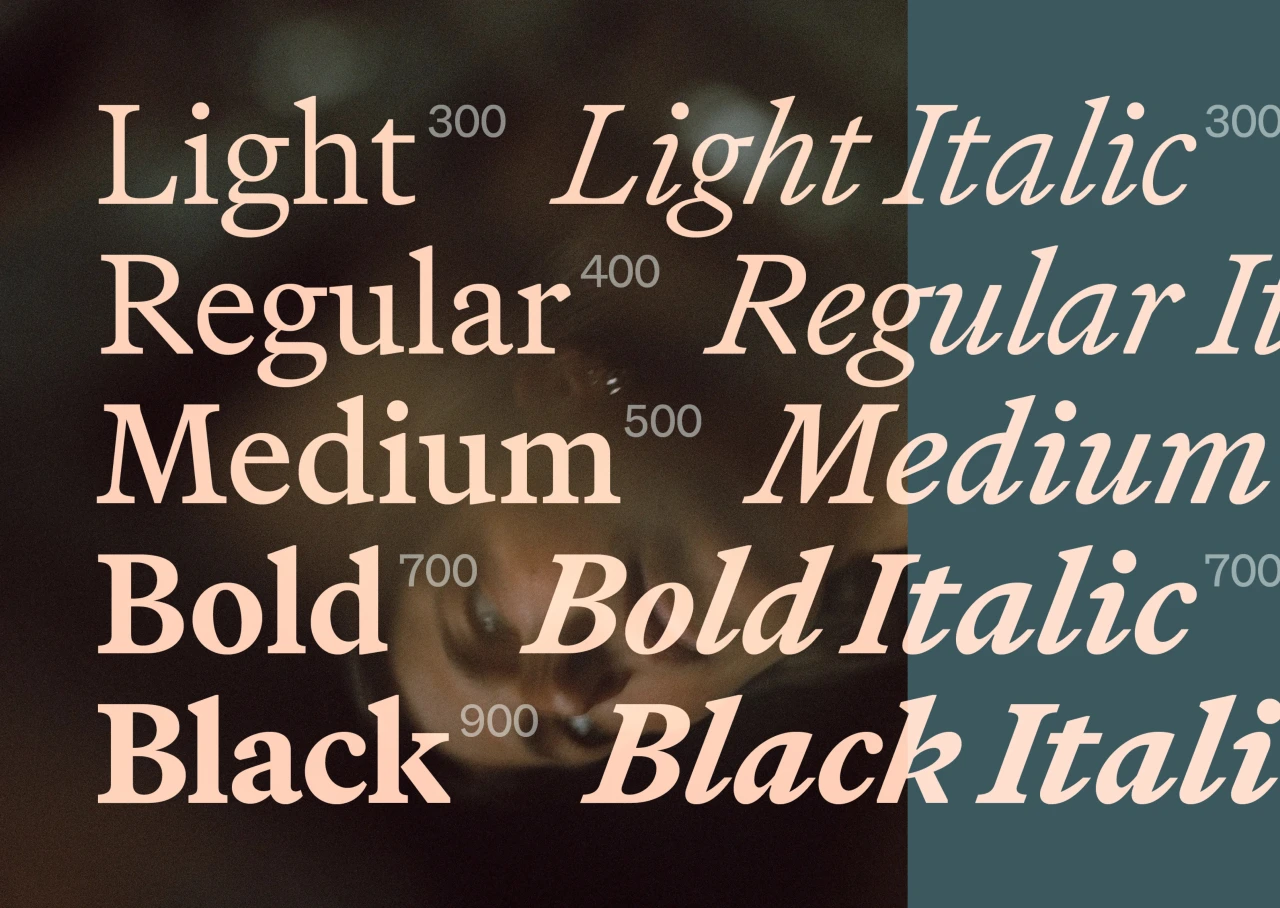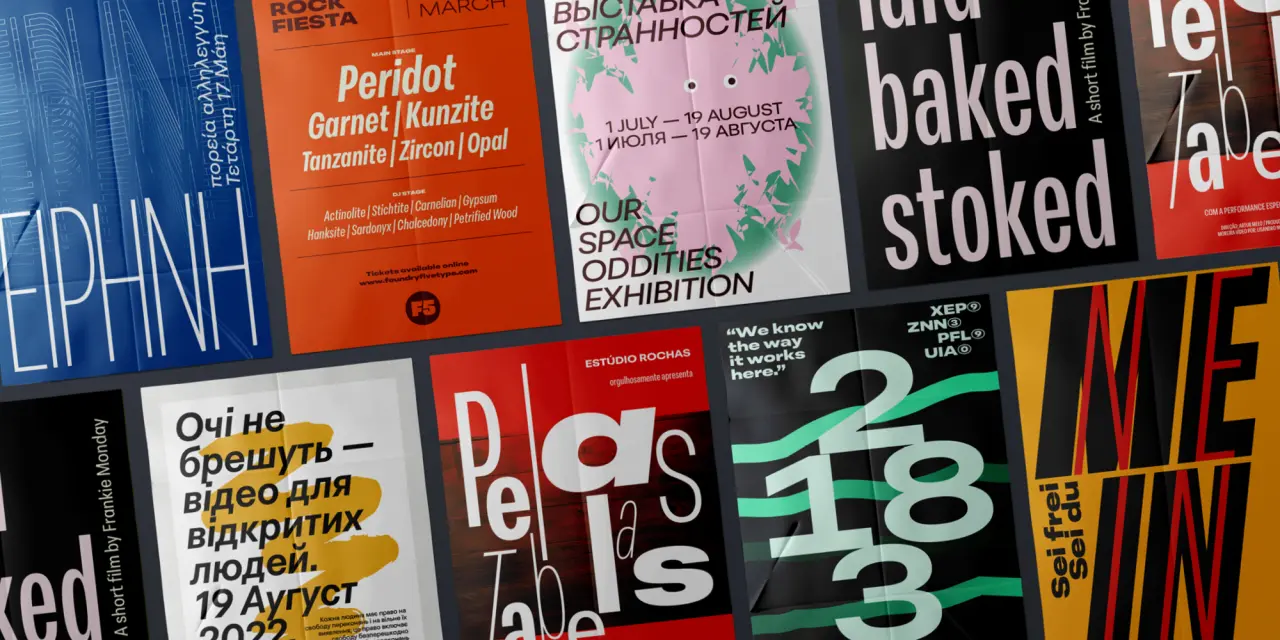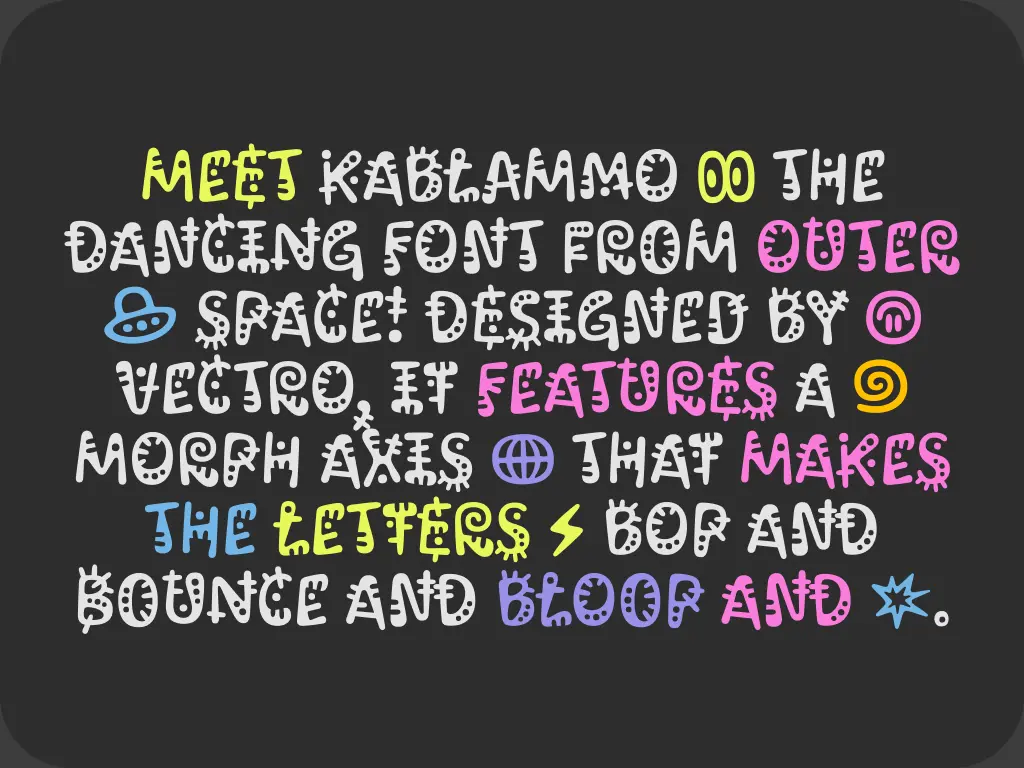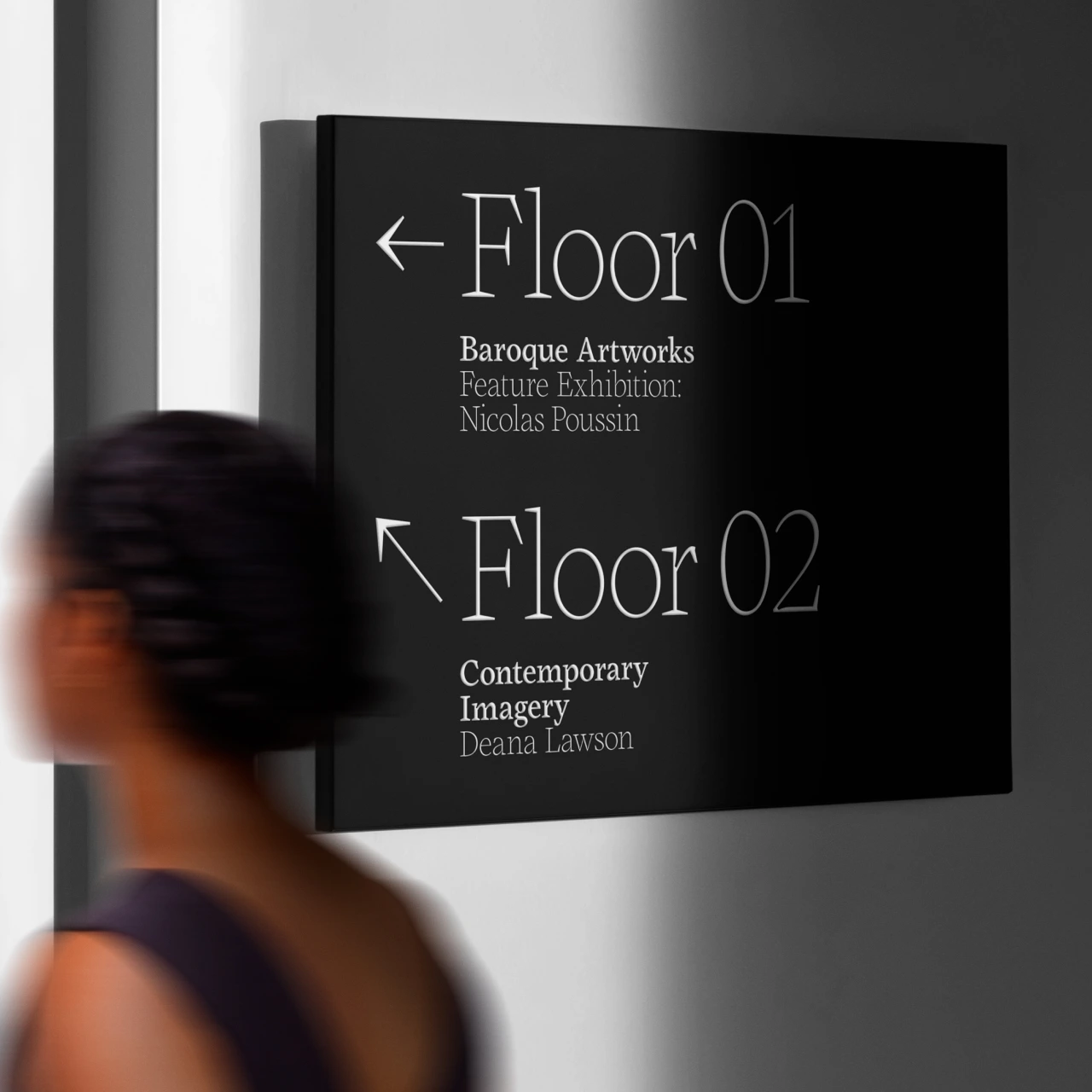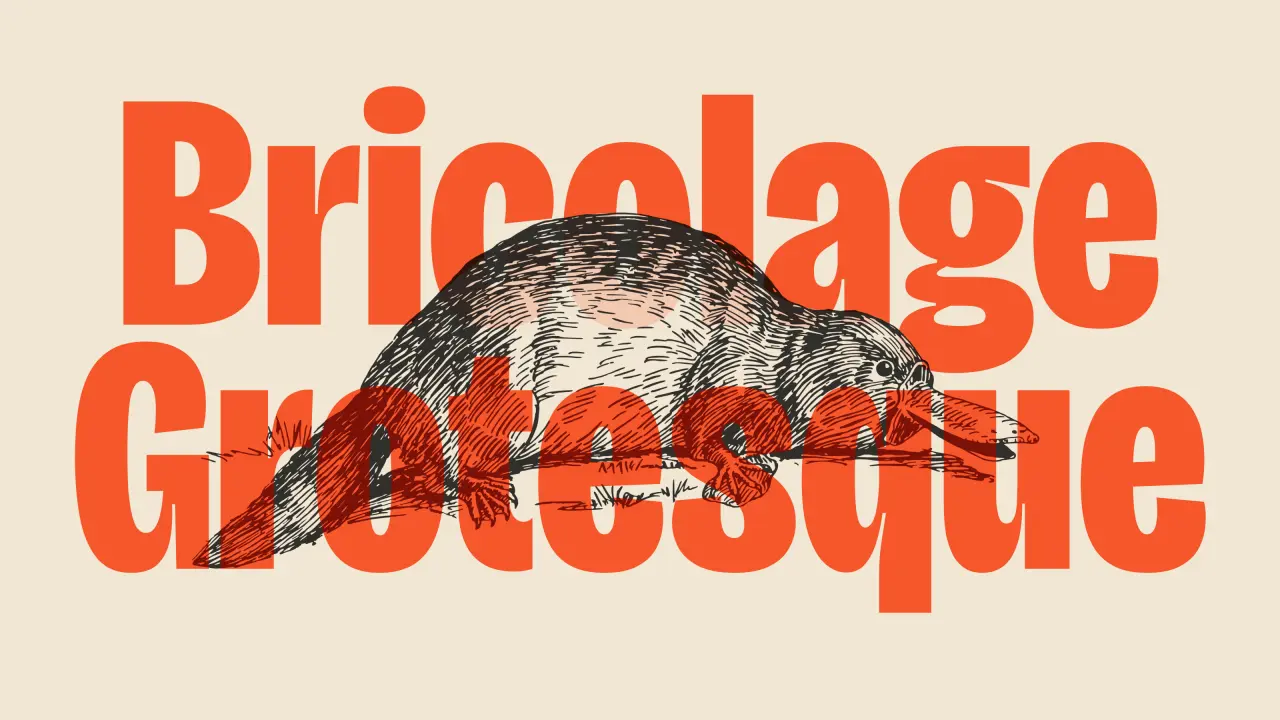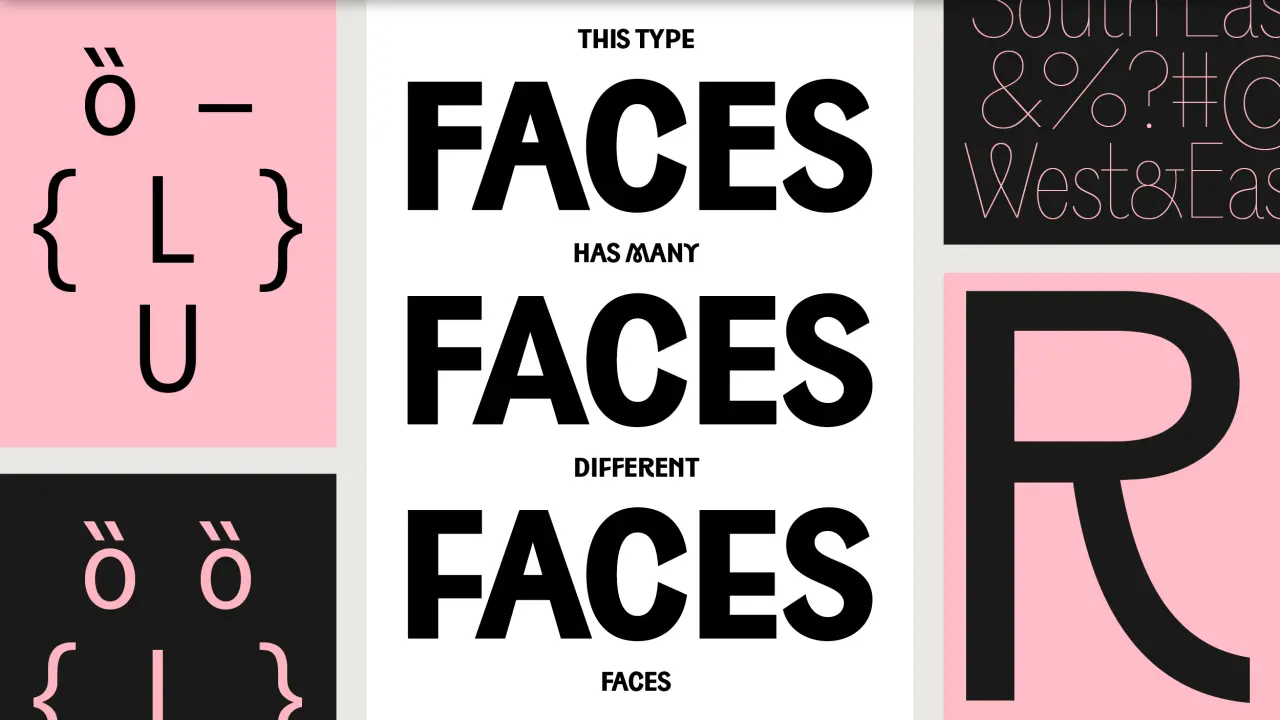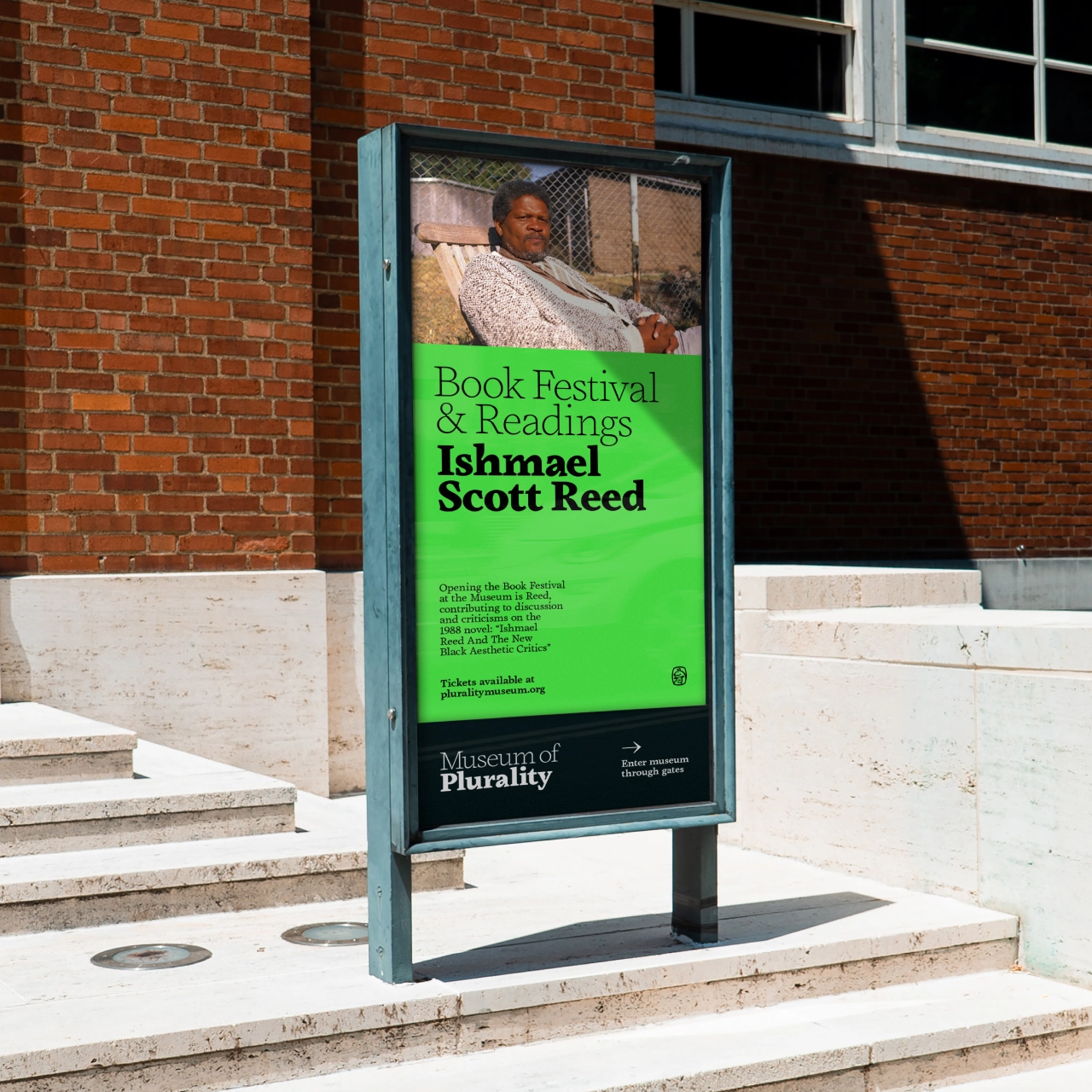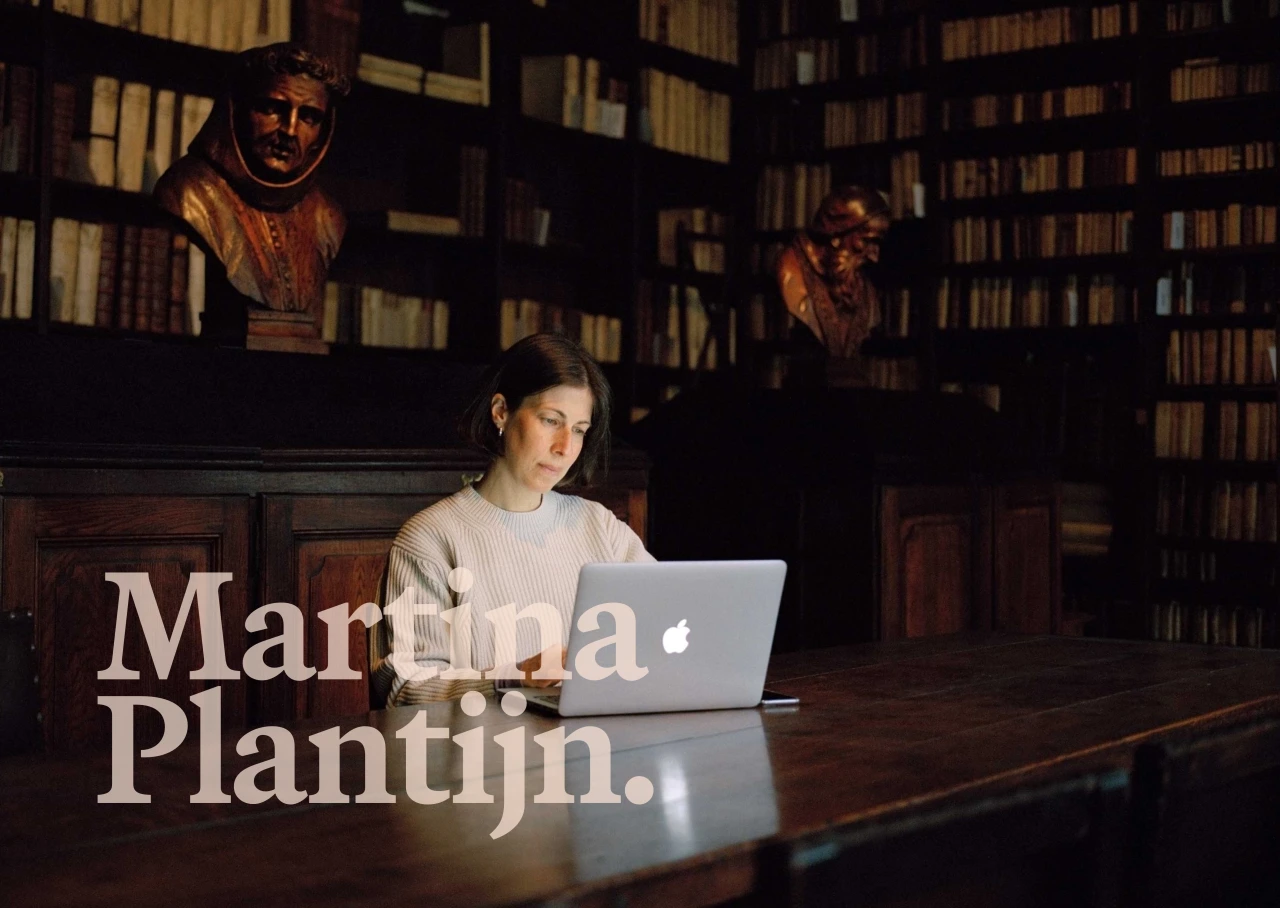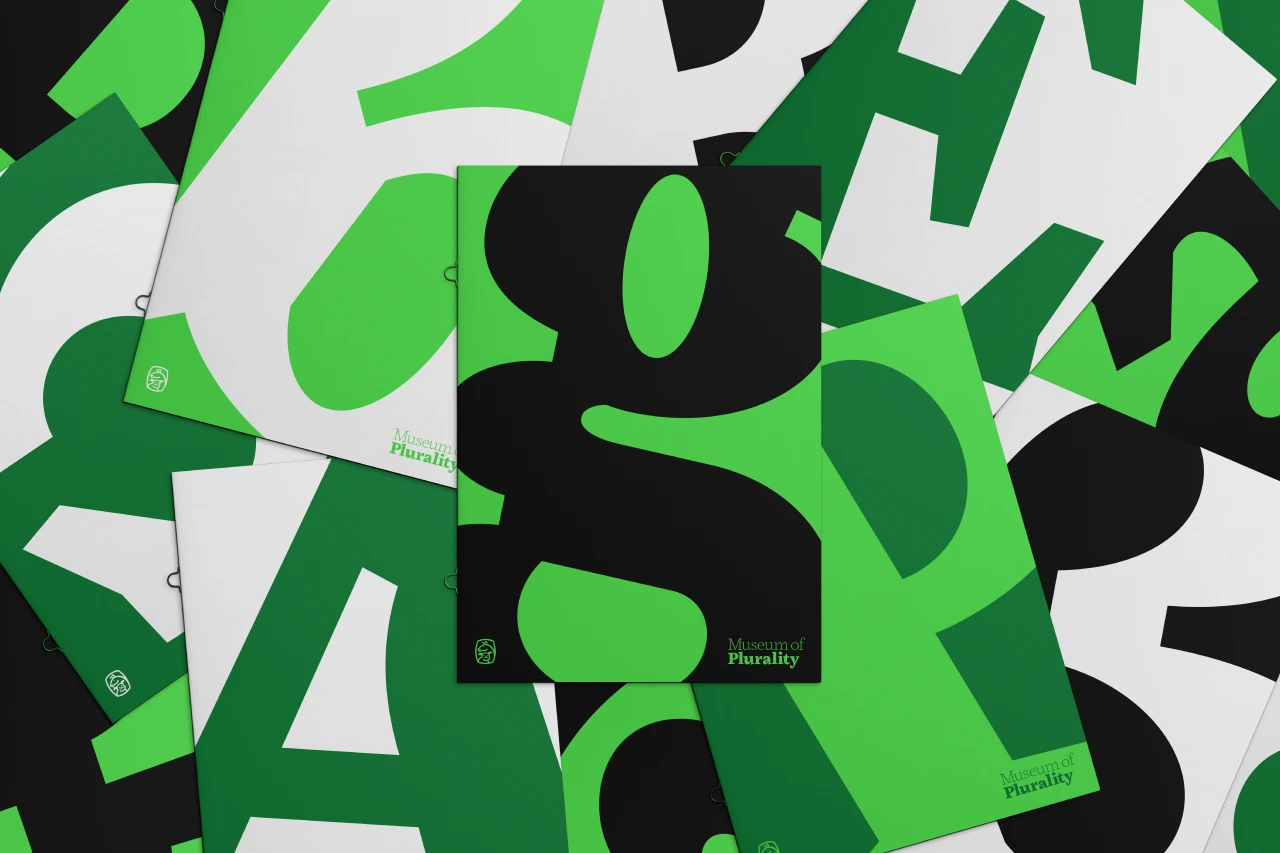
Fresh new fonts for September to satisfy that 'back to school' feeling
Give your designs a fresh breath of air as we bring forth a selection of new typefaces to check out this September.
To help you out, we've curated a shortlist of eight new typefaces that aren't just characters on a screen; they're vessels of expression, carrying the weight of tradition and innovation simultaneously. From chunky slab serifs to geometric delights, our selection showcases the diverse range of creative thought shaping the world of typography in 2023. Join us on a journey through these meticulously crafted letterforms as we explain what's different about them and why they're worth giving a go.
1. Bricolage Grotesque by Mathieu Triay
Want to explore new horizons with your typography? Then make a beeline for Bricolage Grotesque, a new font that explores the connection between typography and personal identity. It's a free and open-source variable font across three axes: weight, width and optical size.
Bricolage Grotesque started as a fork of Mayenne Sans, an open-source single-weight font designed by Jérémy Landes. It then evolved with cues from French sources, namely Antique Olive, and British sources, including the Grotesque series by Stephenson Blake.
Mathieu tells us: "Bricolage Grotesque blends elements of iconic British and French type design with modern trends and tools to traverse an emotional landscape that stretches back to my grandfather crossing the 'Méditerranée' and ends with my own experience as a Frenchman living in England for over a decade.
"This isn't your typical typeface," he adds. "It tries to visually express what it feels like to move countries and rebuild, what it feels like to have a hybrid identity where you cannot be what you were and yet you can never truly be anybody else."
2. Dockland by Tom Holloway
Slab serifs can be a bit samey, but here's a noteworthy exception. Dockland is a low-contrast font crafted in a transitional style.
Referencing the London Docklands development, its crisp and sharp texture adds some calligraphic flavour to the often mechanical genre of slab serifs. And more broadly, its blend of mechanical construction with geometric clarity and a swift stroke fuses the best of past and present into one elegant design.
Inspired by blackletter elements and lithographic prints from the 1890s, this is a solid text face with modern proportions, clearly defined shapes and an angular physique. Whilst the heavier weights are physically strong, the lighter weights are precise and airy. The result is a smart slab serif with seven weights across uprights and italics.
This would be a good choice for corporate typography – everything from food trucks and craft beverages to maritime sports teams and tech start-ups. Plus, as a strong workhorse for text, it's also a strong option for abstract businesses or publications within a cultural and academic context. Dockland is shipped with a weight range from a delicate Extra Light to a strong ExtraBold. The glyph set covers a broad Latin language support, fractions, old style and decimal figures, as well as arrows.
3. South East by Playtype
It's always fascinating seeing how cultural and linguistic differences can affect typography, but few type designers are brave enough to cross-pollinate between languages. Here's a notable exception.
South East is a sans serif type family loosely inspired by the shapes and compositions seen in the curved forms and varying letter heights of Hangul, the Korean alphabet, which is intended for vertical reading. It's the latest release from Playtype, a Copenhagen-based independent type foundry specialising in retail and custom typefaces.
Its genesis began in 2019 via a custom typeface project that Playtype created for a youthful lifestyle brand in Korea. The team found inspiration in sketches by a Korean type designer and was captivated by the essence of Hangul typography. This inspiration led to the development of the South East, forging a connection between Scandinavian design sensibilities and the rich heritage of Hangul.
Designer Jonas Hecksher carefully adapted the characteristics of Hangul to the Latin alphabet, incorporating different centre heights and mimicking its distinctive form. The result is a typeface that pays homage to its inspiration while offering a distinctive typographic experience.
The upper and lowercase characters mimic the pattern found in Hangul, enhancing continuity and playfulness throughout the typeface. To emphasise its playful nature, South East touches the cap line, a distinctive choice that adds an element of fun and breaks away from convention.
South East includes a wide range of stylistic sets, allowing you to choose between three different centre heights and a good number of alternate letter shapes. When used in large sizes, it shows its display qualities while still performing perfectly as a text typeface in smaller sizes.
With many faces and many different expressions, the typeface is available in nine weights across three widths – Condensed, Normal, and Expanded – which makes it a family of 54 styles, including corresponding italics. Latin, Greek and Cyrillic scripts are included, along with more than 220 languages.
4. Peridot by Foundry5
Looking for a versatile font? Then you won't go far wrong with Peridot by Foundry5. It's a 120-style multifaceted sans serif type system designed to shine in diverse settings, from branding and corporate projects to editorial layouts, advertisements, posters, and even web and screen usage.
A 10-weight family with slanted italics in six widths and a variable format, Peridot is loaded with personality; try the different stylistic variants to change typographic tone depending on your mood. Designed by Pria Ravichandran and Kostas Bartsokas, it supports Latin, Greek, and Cyrillic, with Devanagari and Arabic promised soon, and recently won Original Typeface in the 2023 Greek Communication Design Awards.
Curious to see it in action? You can explore Peridot on the foundry's website and Behance profile to witness its potential. Peridot is also available on Adobe Fonts, Fontspring, and all Monotype channels.
5. Spades by Order
Here's one we couldn't possibly ignore. Spades is a contemporary Baroque typeface that blends the historical influences of ornate 18th-century typography with the modern concept of an ink trap. It's a great concept and brilliantly executed.
Designed by Sascha Hopson and mastered by Tiny Type Company, the Spades family explores the juxtaposition of two distinct historical periods: the Black Arts Movement and the Baroque Era. While these may seem contradictory, Spades somehow finds an overlap between them and forges a distinctive typographical voice via the extravagance, expression and attitudes of the respective eras.
Technically, there is a visual relationship between the shape of the scalloped serifs and ink traps. The juxtaposition of the ink traps inner counter to the scalloped serifs almost represents a mirror of the serif shape itself: a fascinating concept. This font is available in thin, light, regular, bold, and black.
6. Gaisyr by Dinamo
The fusing of old and new takes another intriguing twist with Gaisyr, a beautiful new typeface with house-style butterfly serifs. It takes its point de départ from sketches by the early 18th Century royal typographer for King Louis XIV, Jacques Jaugeon, and reimagines them through the lens of a TikTok content neighbourhood. It's suitable for longer texts but loud enough that, as the creators put it, "it's not just another Times".
Its origins lie in Romain Du Roi, the typeface of King Louis XIV, a heavily rational design drawn by four scientists in 1692 and based on a grid of 2,304 tiny squares per letter. This was arguably the first transitional typeface: a bridge from designs modelled on handwritten letters to typefaces created specifically for the printing press.
This tension between strict geometry and loopy, hand-held lettering was central to the design of the new font. Its butterfly serifs, seen in typically overlooked characters like the lowercase i and l, sprout out like a geyser (although the designers went for the prettier-sounding 'Gaisyr'). Royal swashes, meanwhile, are available as alternates for when you need to make an extra splash; you'll find them in the stylistic sets for e, h, k, m, n, r, and z.
The typeface has a total of 42 styles. It's available in Regular, Mono, and Semi-Mono cuts, all with corresponding Italics, and ranging in weight from Thin to Black.
7. Martina Plantijn by Kris Sowersby for Klim Type Foundry
We're always keen to check out what Klim Type Foundry's designer Kris Sowersby has been working on, and his latest project is no exception. Martina Plantijn is a new type family informed by the workhorse qualities of Frank Hinman Pierpont's well-known 1913 typeface, Plantin.
This new design expands upon Pierpont's research of 16th-century type at the Museum Plantin-Moretus in Antwerp, making digital updates across its roman and italic cuts. "It's my third official bite at the Plantin cherry," Sowersby explains. "The first was Galaxie Copernicus (2007) with Chester Jenkins. Tiempos (2010–18), a re-focussing of Galaxie Copernicus through the lens of Times New Roman, was the second. Martina Plantijn is a more accurate rendition. I'm honouring the original spirit and fortitude of Plantin."
In short, this is a formidable next-generation Plantin that reconciles historical analogue qualities with a 21st-century digital reality. Martina Plantijn is very robust at small sizes, hard-working and modest, while larger settings reveal practical and opinionated arcs, cuts and terminals.
Unlike Plantin's looping pothooks, Martina Plantijn's entry serifs are more akin to its roman triangular head serifs. These are usually more cursive, indicating an incoming pen stroke. Martina Plantijn's are consistently horizontal on the flat while the top curve remains fluid. This creates a solid anchor across the x-height that lets the baseline dance. The exit strokes incline abruptly and are slightly longer than normal.
8. Kablammo by Vectro Type Foundry
Our final font will make your head spin but in a good way. Vectro Type Foundry's new typeface Kablammo is a maximalist, absurdist, out-of-this-world love letter to the 90s. This animated variable font with morphing letterforms was inspired by toys and cartoons from the era, as well as the Memphis Group style.
The typeface is the result of a commission from Google to explore the potential of the new variable font format. Vectro's dedicated Kablammo team invested a year and a half, transforming their initial concept into the final design, and it shows.
Vectro developed Kablammo as a joy-inducing, contemporary typeface to stand alongside the likes of Comic Sans, Hobo, and Jokerman. Creative director Lizy Gershenzon envisions it becoming the next go-to font for birthday cards, school parties, and even corny office memos — essentially, anywhere people seek to add some fun.
"In a way, Kablammo reminds me of '60s minimalist music like Steve Reich and Philip Glass," says lead type designer Travis Kochel. "The music feels repetitive on the surface like it's stuck in an endless loop. But on closer examination, it's constantly evolving and moving, with subtle variations in each measure. This creates a fascinating tension, complexity and energy."
Its animated nature makes it well-suited for dynamic movie titles, ads and the web; Kablammo can easily come to life on digital platforms with CSS animation of the variable axis. The Morph axis allows the letterforms to dance between four alternates. On an axis range of 0–60, the morph styles include Zoink at 0, Bloop at 20, Splat at 40, and Eek at 60.
In addition to the Latin character set, Kablammo also features Cyrillic, designed by Daria Cohen and Ethan Cohen. This expansion allows Kablammo to be used in languages such as Ukrainian, Bulgarian, Serbian, and Russian. Kablammo is now available for free on Vectro Type Foundry and Google Fonts.